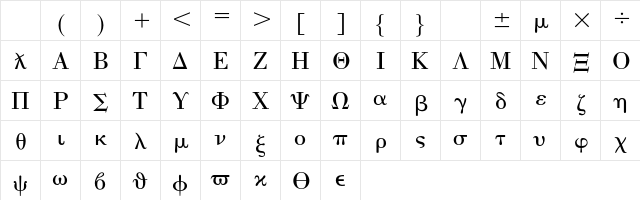
Complete Universal Std Greek with Math Pi glyph index. Displaying only characters natively supported by Universal Std Greek with Math Pi font.
Universal Std is a composed and adaptable typeface that performs quietly and consistently across a wide range of design contexts.